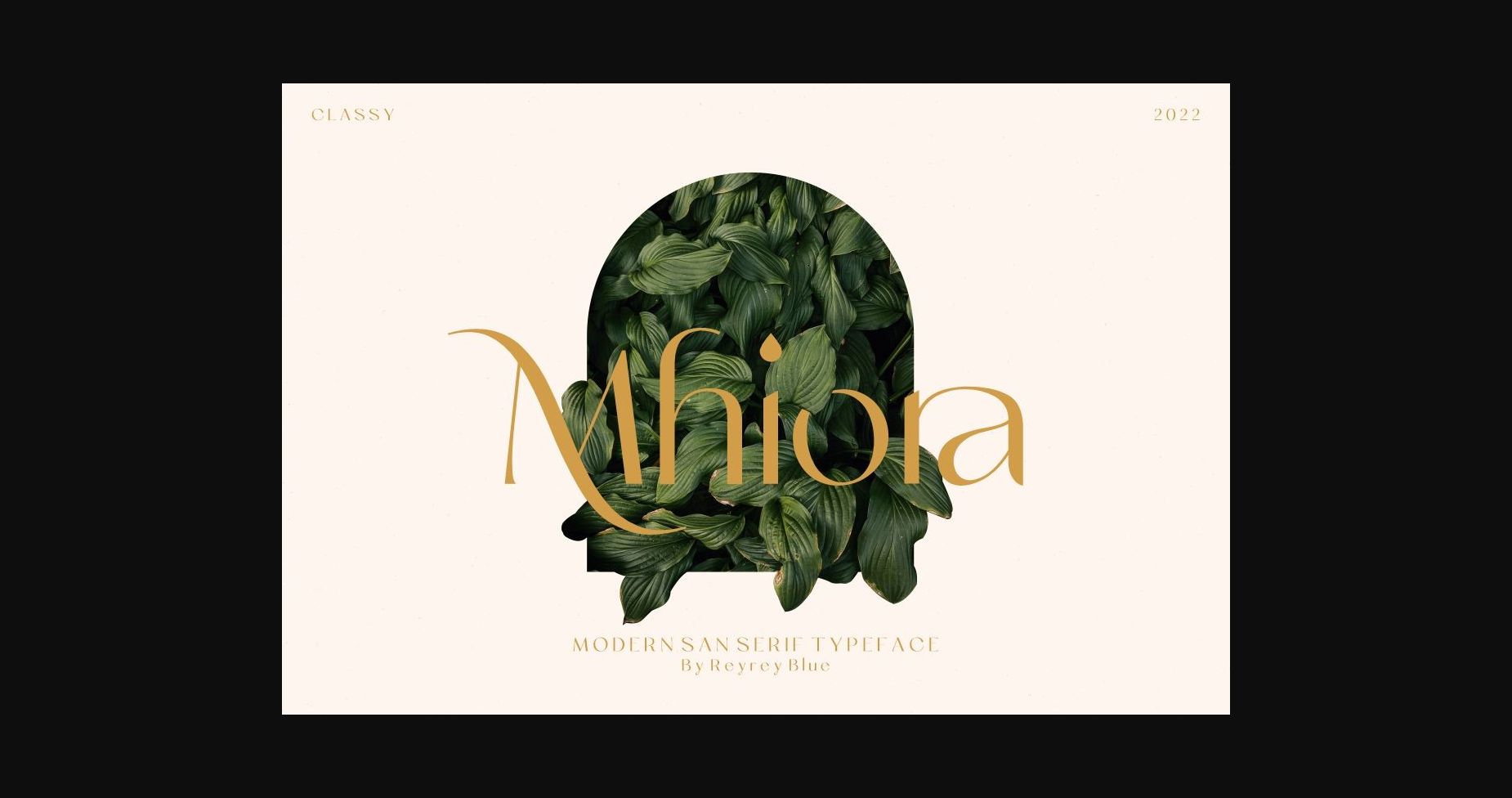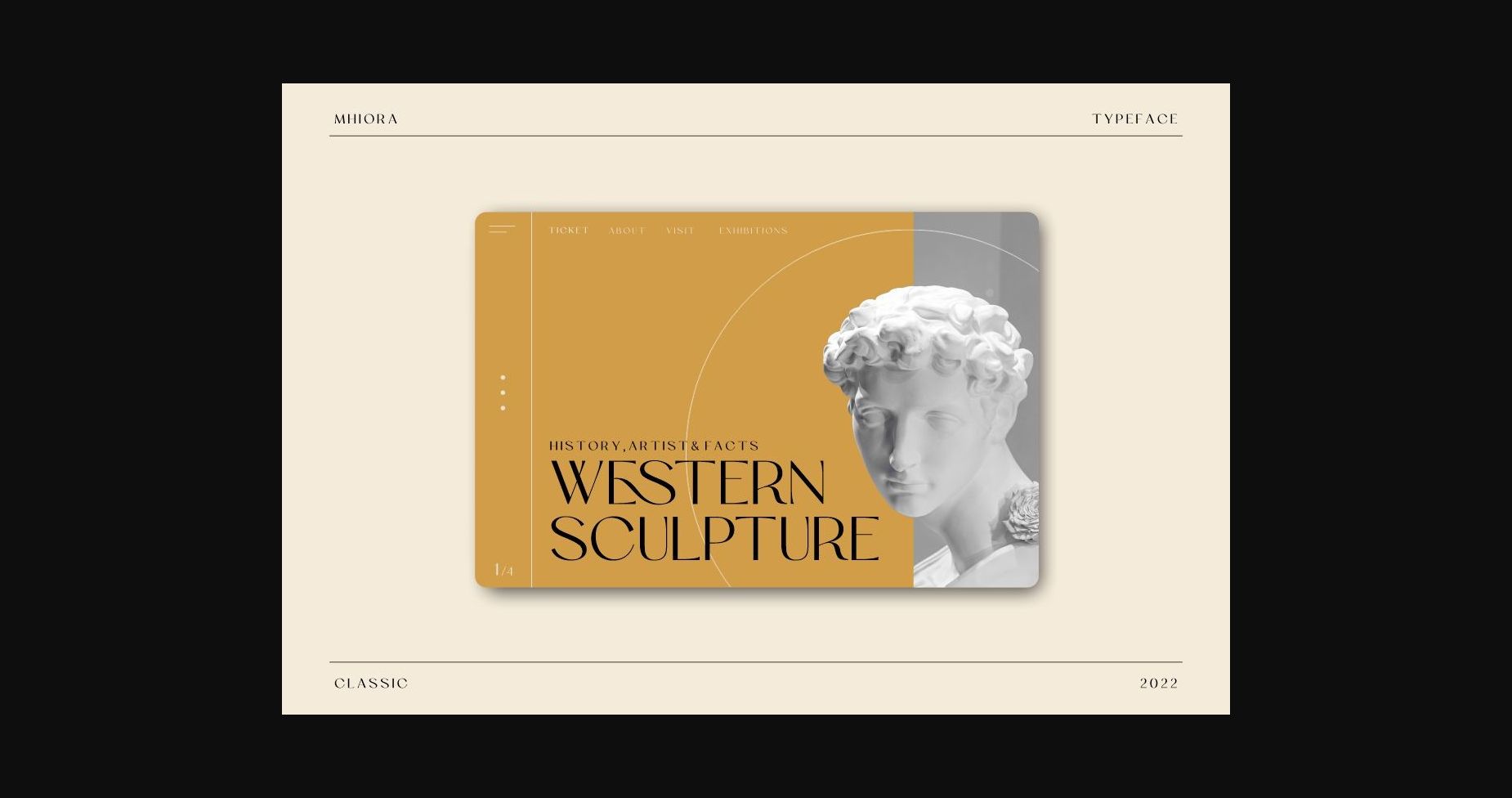
About Mhiora Font
Introducing – Mhiora. A modern and classic sans serif font with a modern touch. Specially designed for luxury, elegant and feminine projects. This typeface features many options of alternates and ligatures, perfectly suitable for creating designs such as branding, logos, invitation, mastheads, and more.